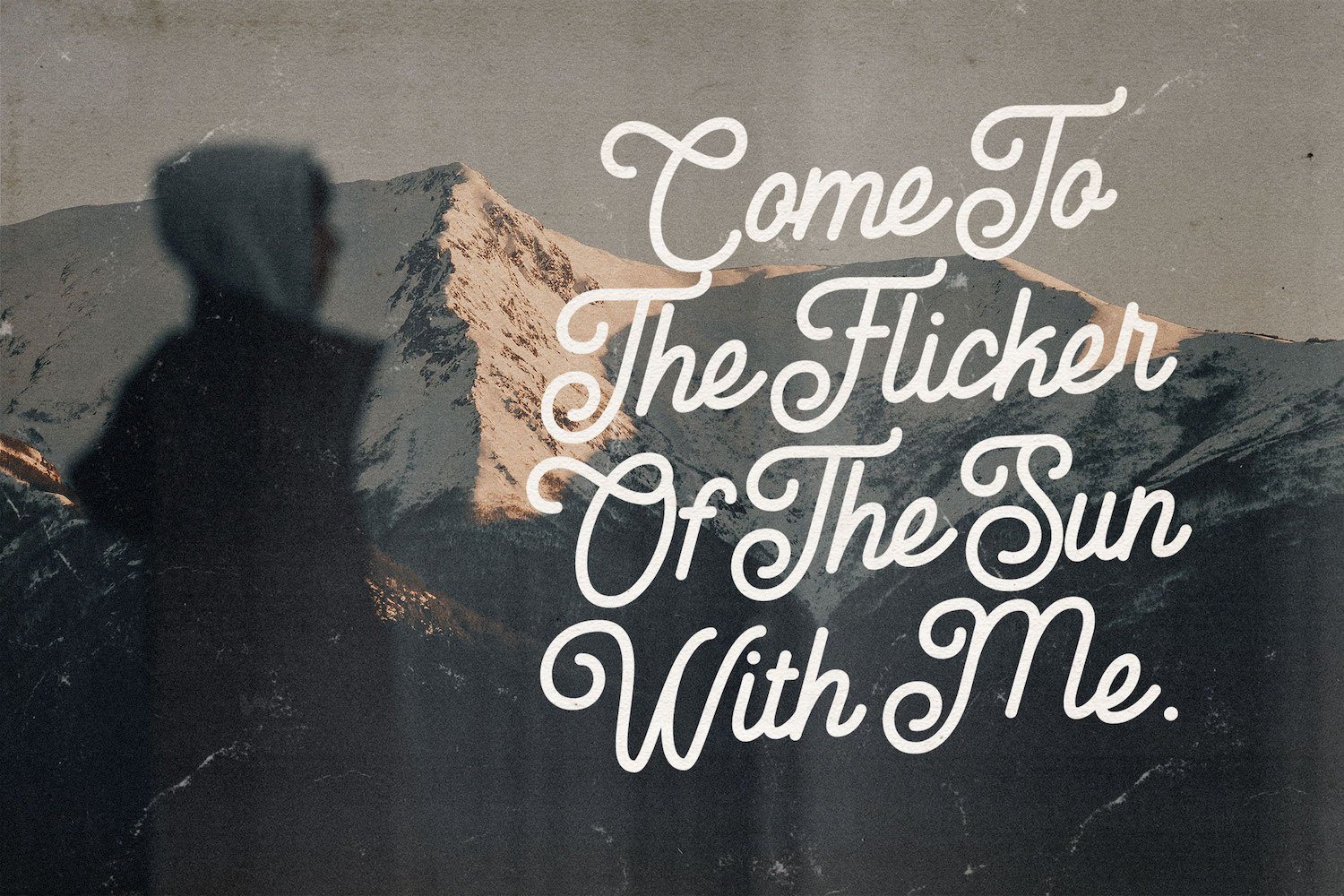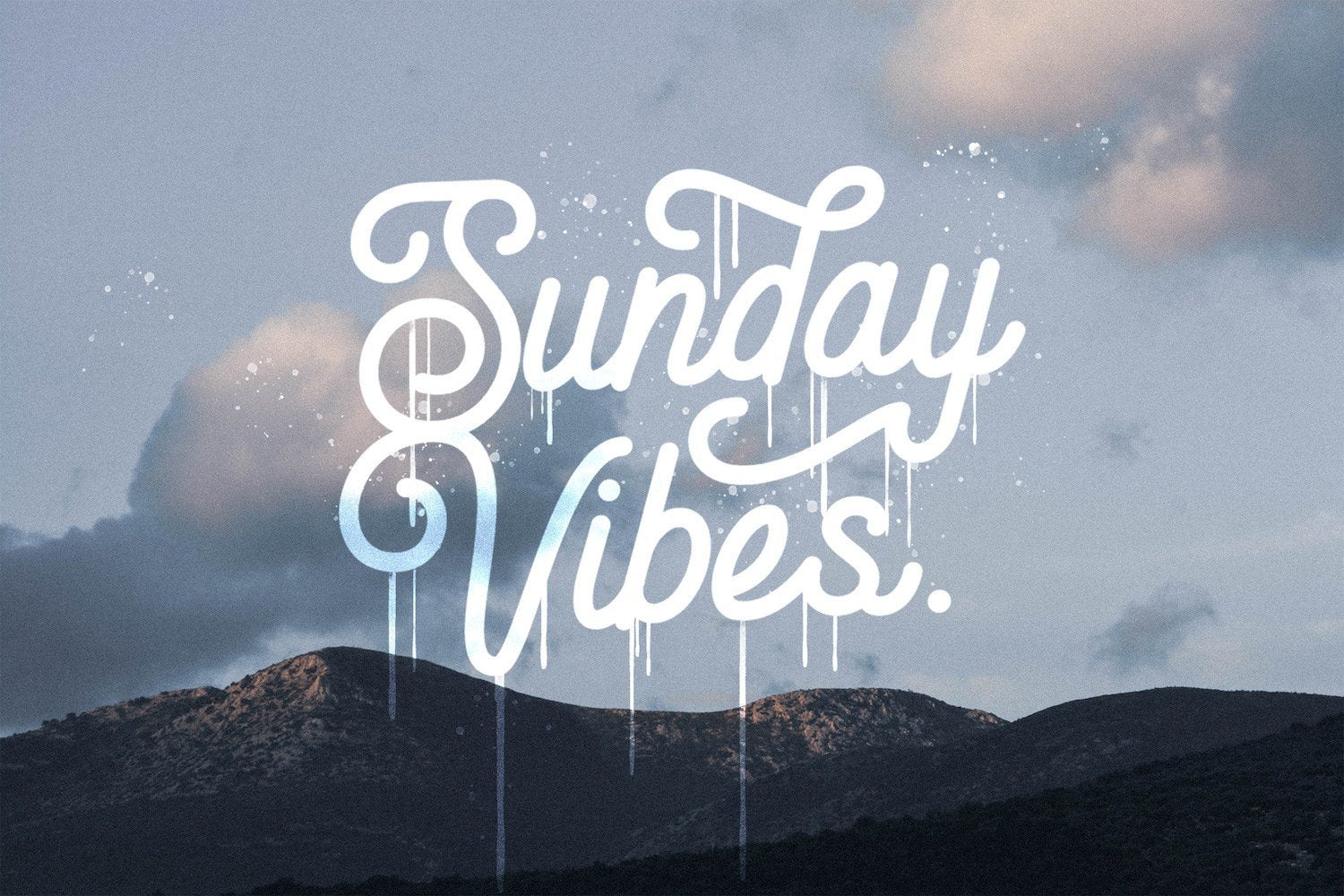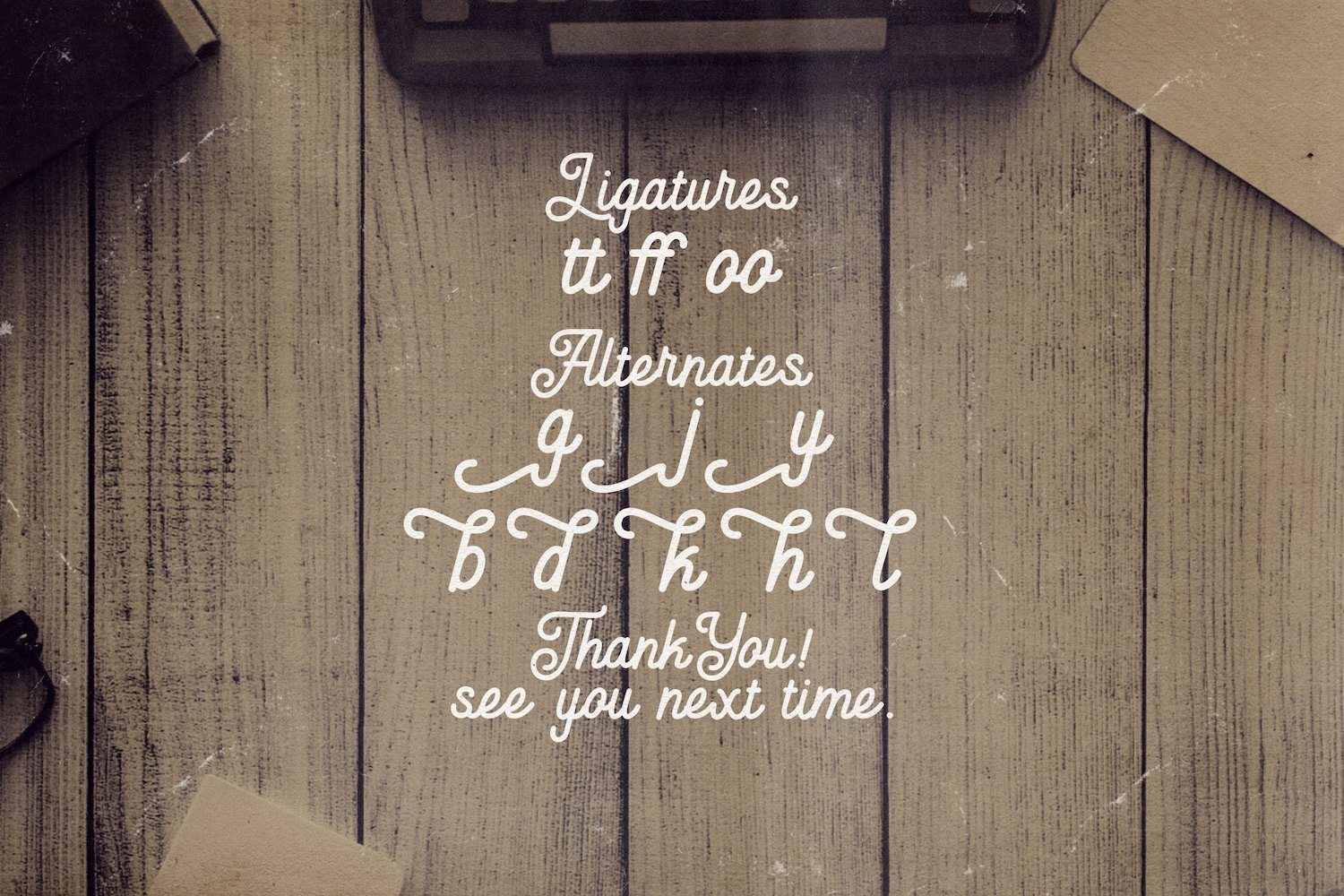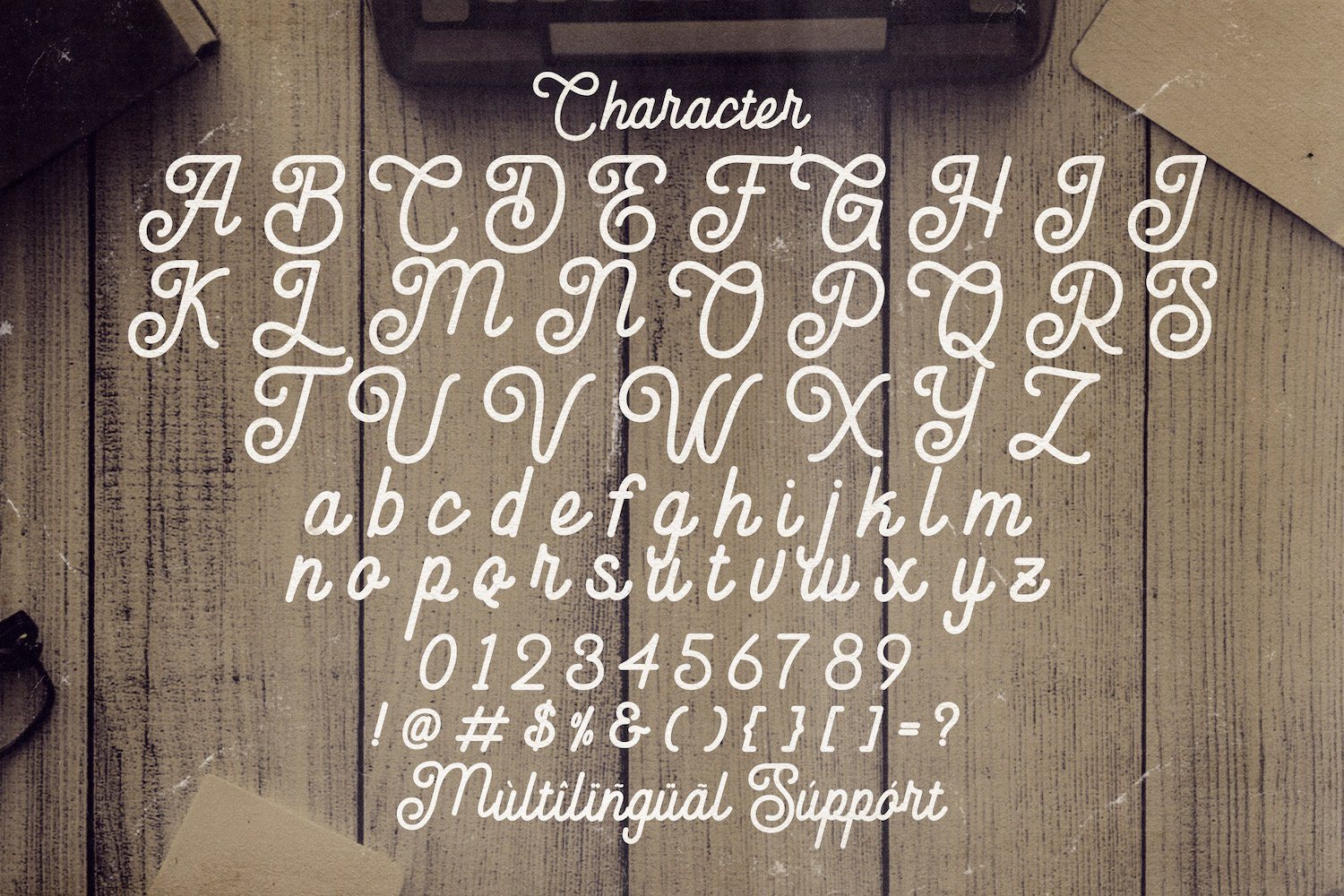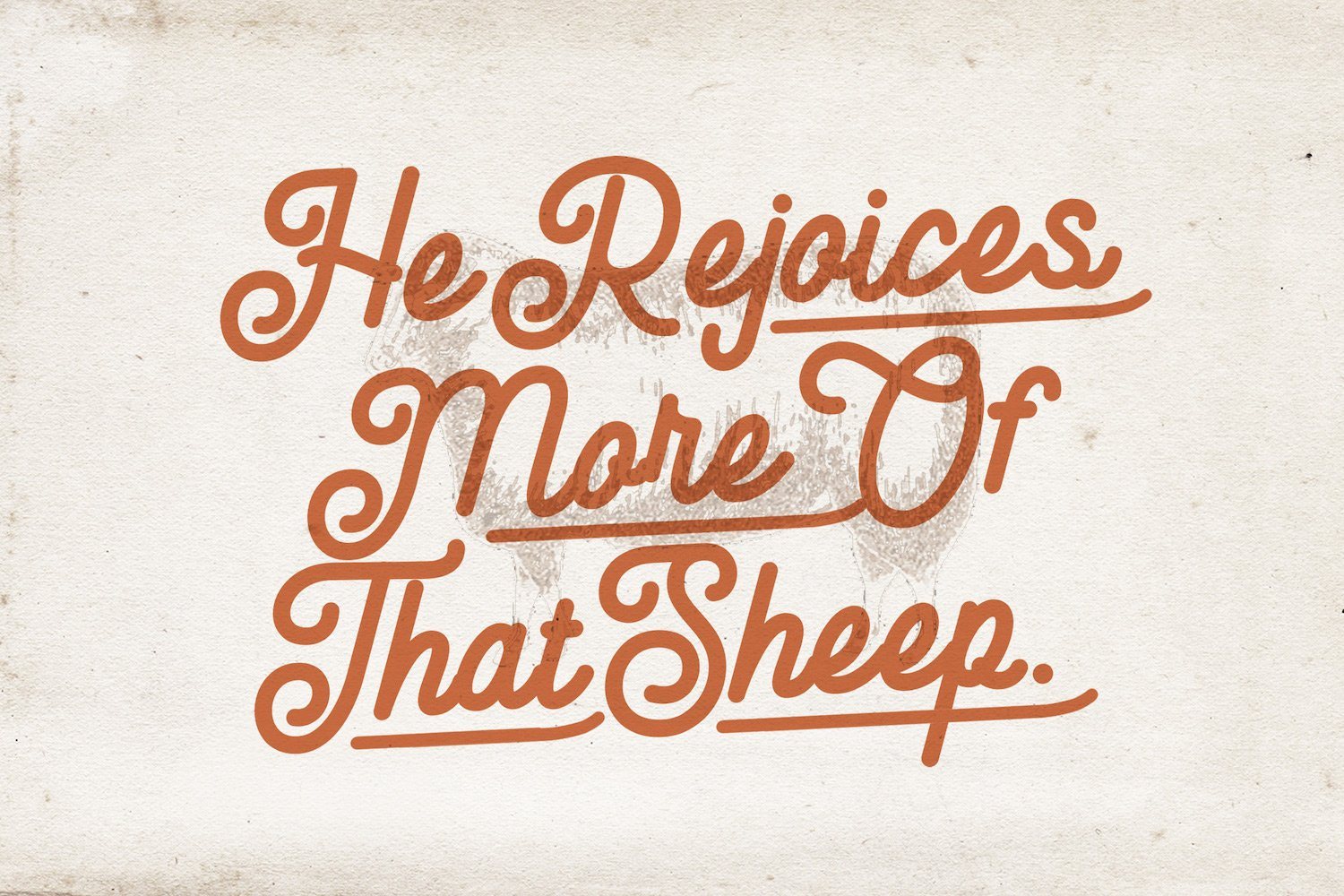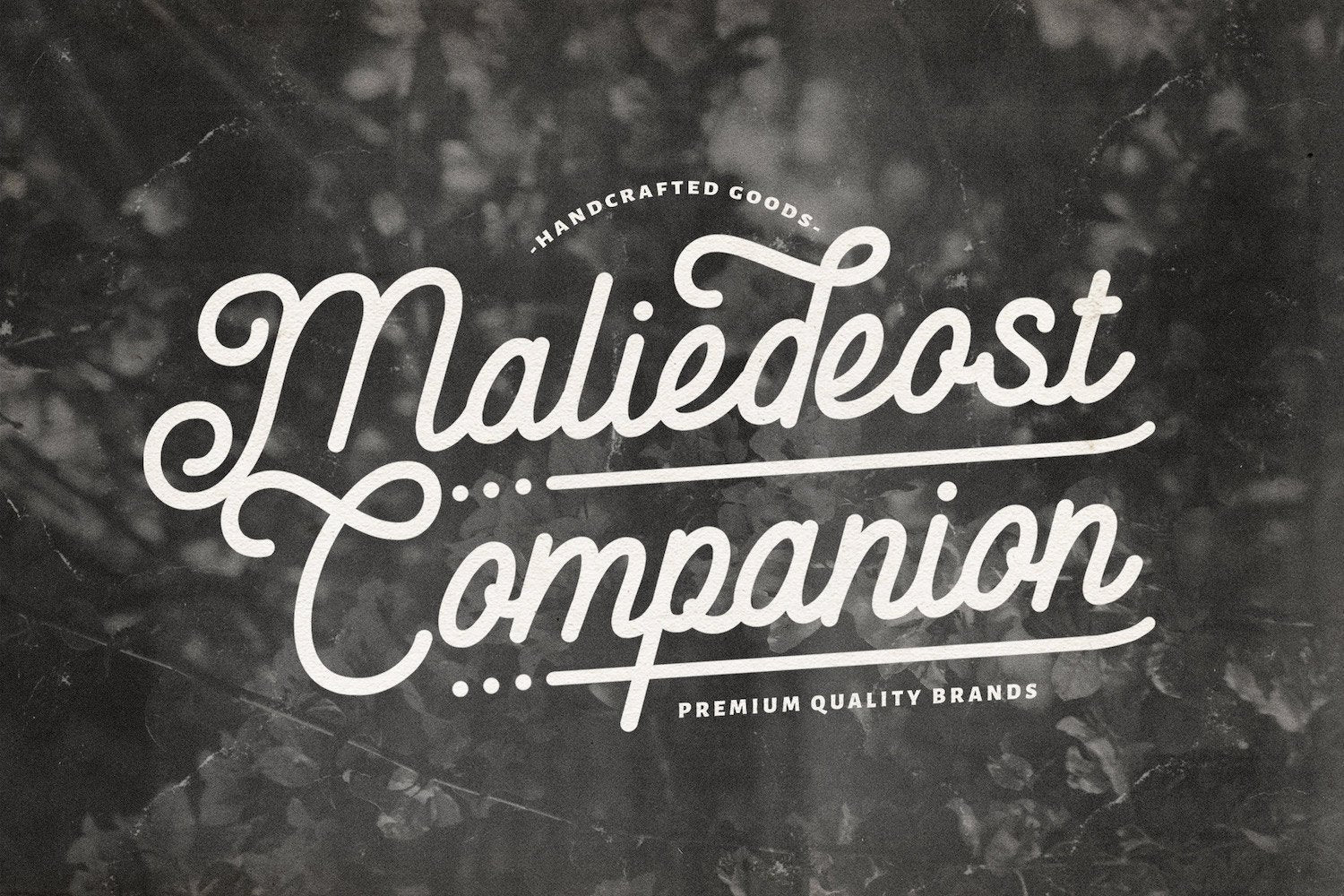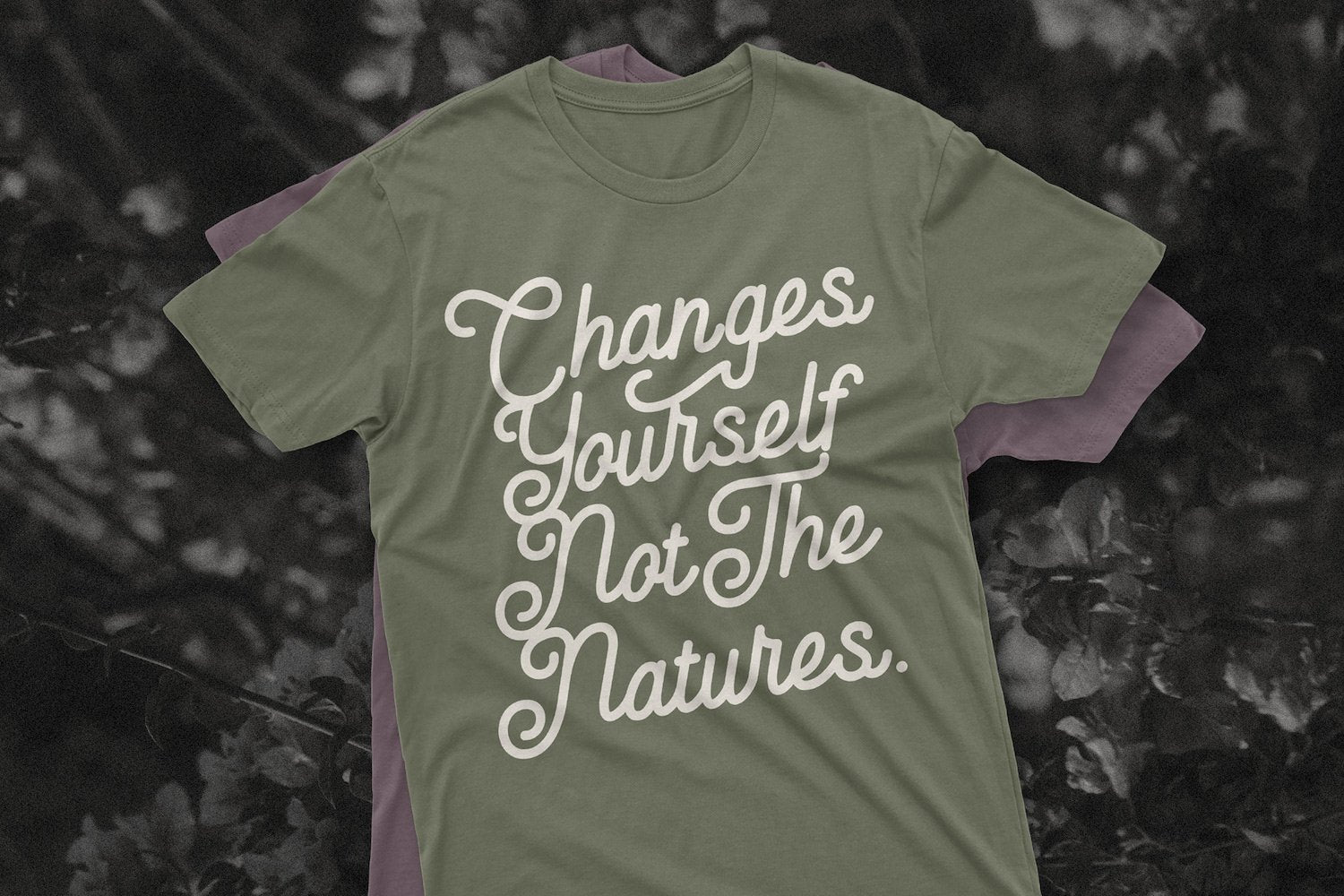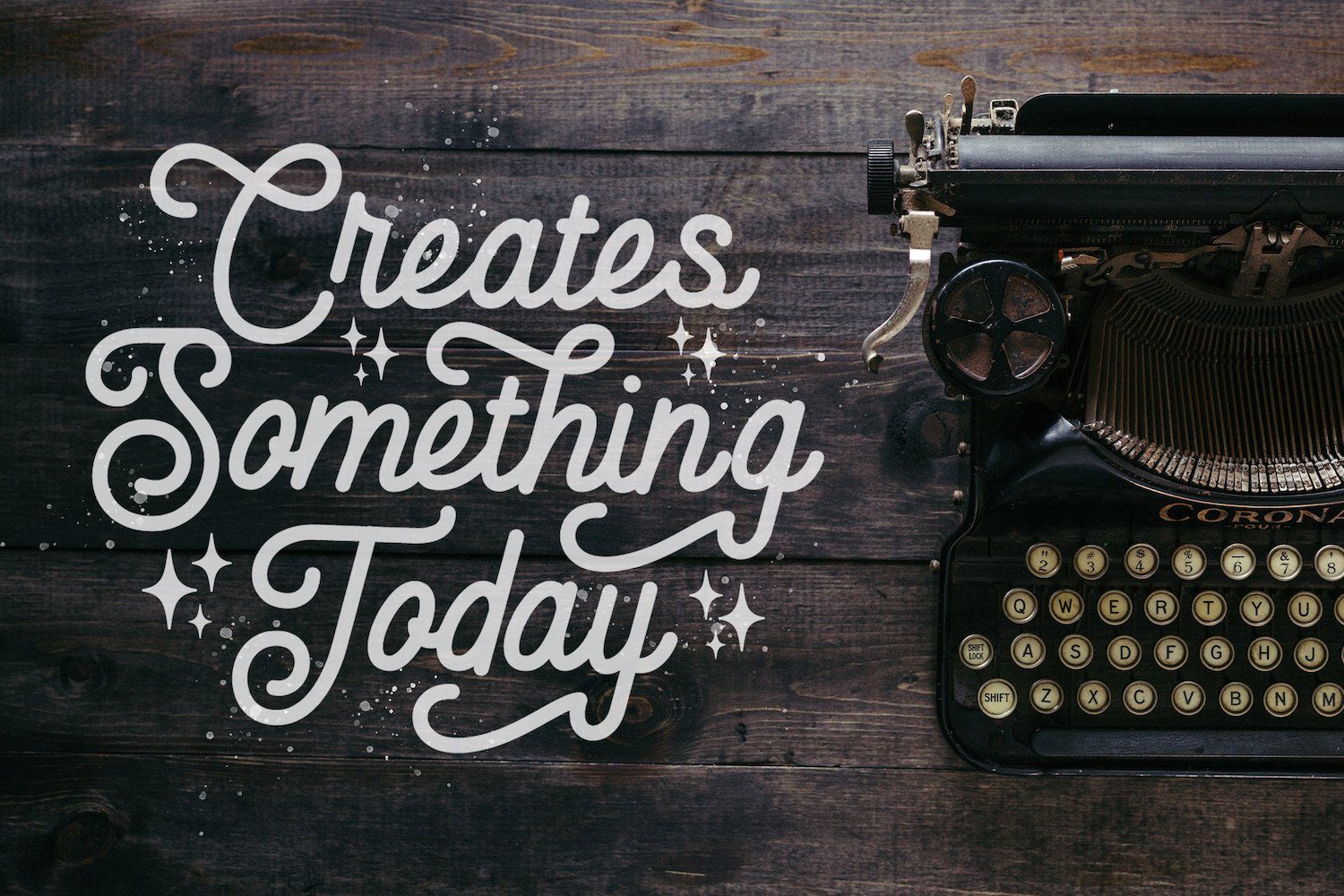
Anelka Fambuya – Monoline Retro Script Font
Introducing Anelka Fambuya – Monoline Retro Script Font Anelka Fambuya is a Monoline Script Font with Retro Vintage Style. This font is perfect for fashion brand, apparel, shoes company, wedding invitation, business card, logo brand, clothing, and also business brand name like barber shop or taylor. This Font Template contains Classy, Elegant, Creative, Cool and has a Unique Concept. FEATURES – TTF/OTF/WOFF/WOFF2 – Ligatures – Alternates – Uppercase and Lowercase letters – Numbering and Punctuations – Multilingual Support – Works on PC or Mac – Simple Installation – Support Adobe Illustrator, Adobe Photoshop, Adobe InDesign, also works on Microsoft Word Hope you Like it. Thanks.